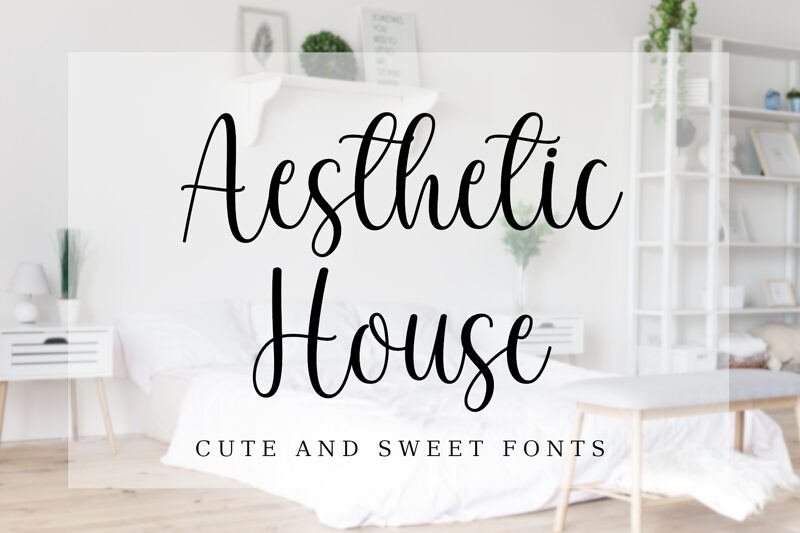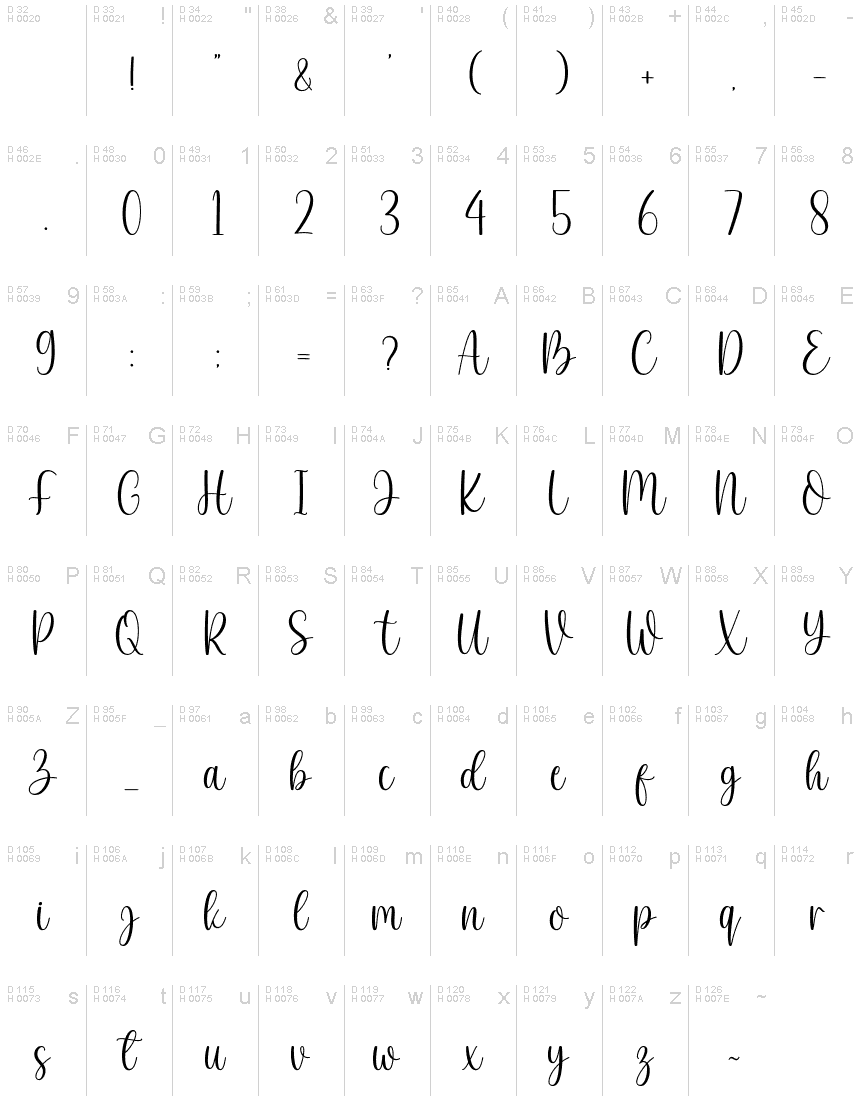
Aesthetic House by AV Type emerges as a font that redefines elegance with its semi-light calligraphy style. Its flowing, minimalist charm is perfect for those who seek a sweet and dynamic touch in their design work.
The delicate curves and fine lines of Aesthetic House make it an ideal choice for projects that demand a sense of sophistication-think boutique logos, stylish business cards, and the pages of women's magazines where personality is paramount. This font isn't just about looking good; it's about creating an experience that resonates with its audience.
Aesthetic House ensures your message is not only seen but felt, making it a go-to for designers aiming to infuse their creations with a bespoke aesthetic essence.